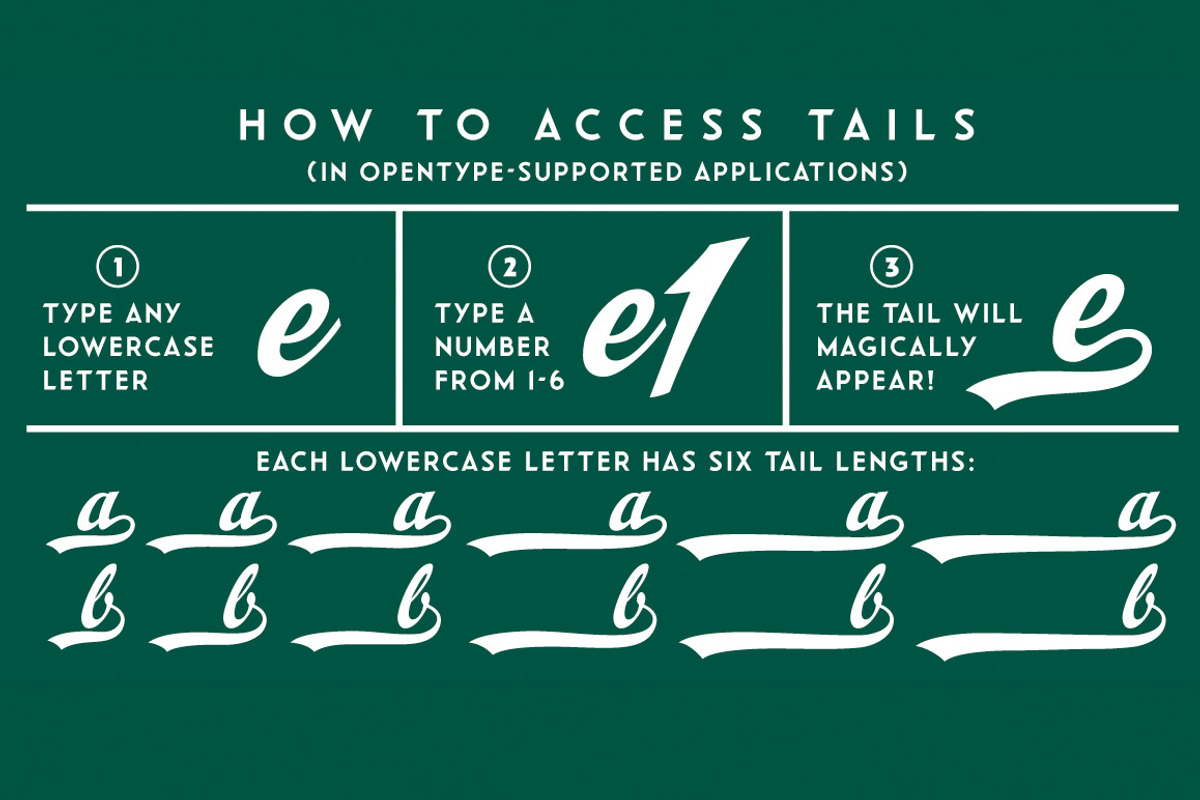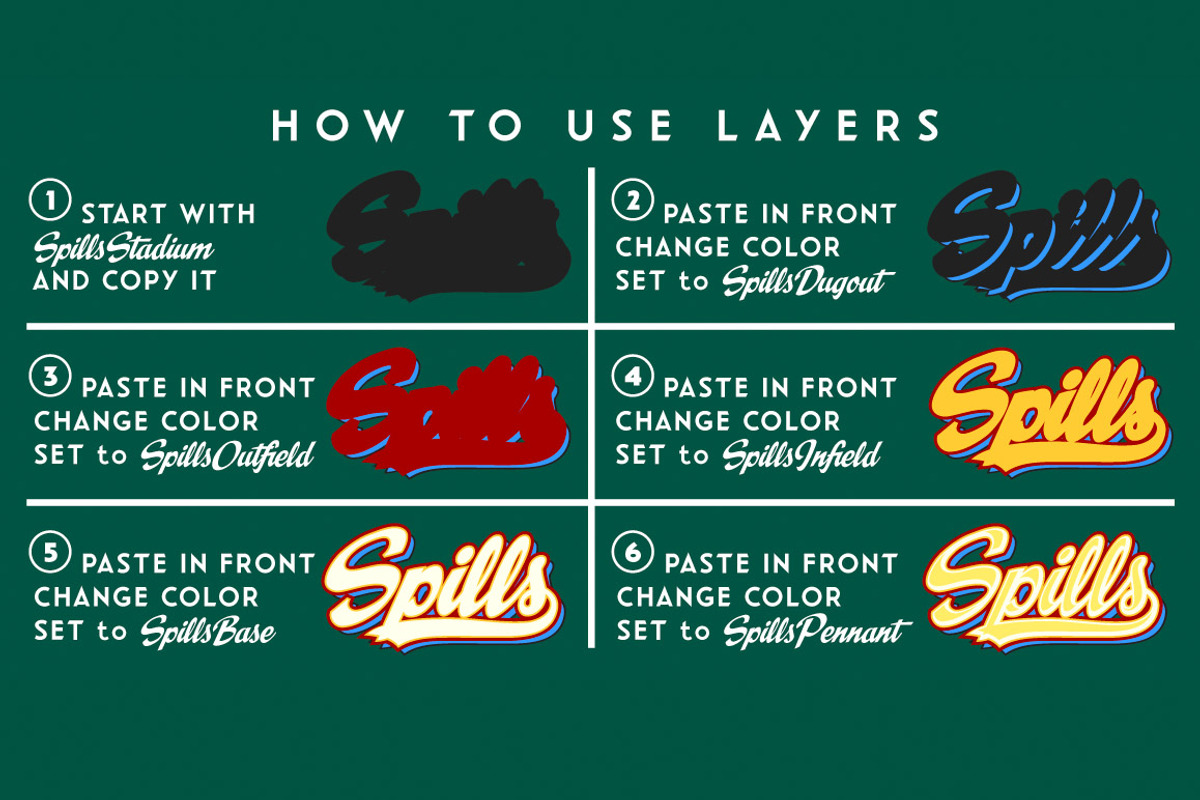
Spills - comic book script logo font
Spills - comic book script logo font by Comicraft Fonts is a font selected for branding, posters, packaging, typography.
Why Spills - comic book script logo font is worth a look
Spills - comic book script logo font by Comicraft Fonts fits naturally into Branding, posters, packaging, typography.